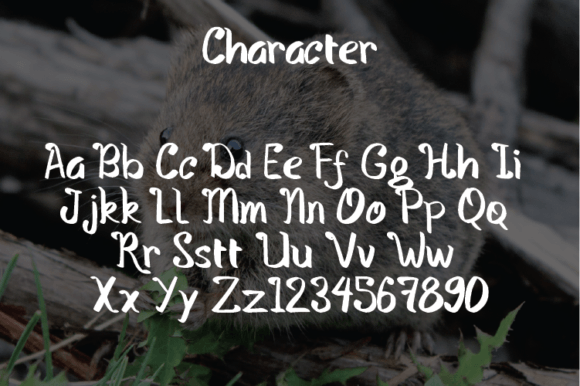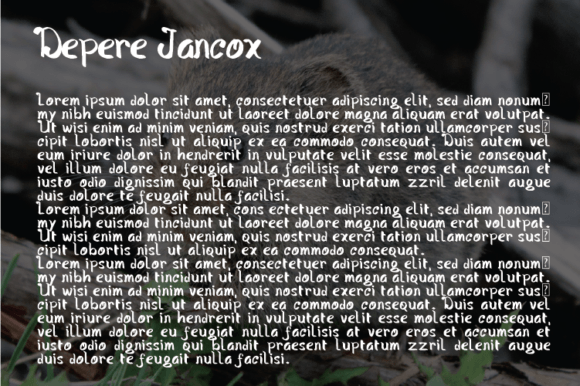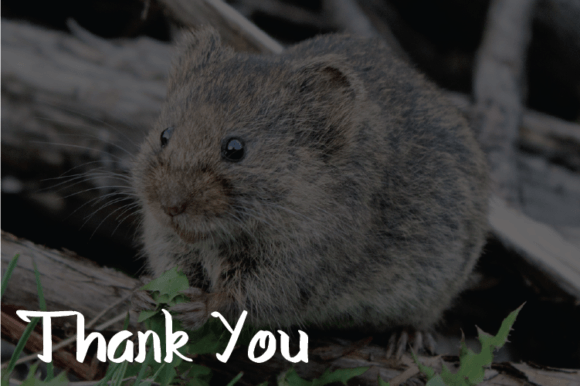
Introducing Depere Jancox Font: Elevate Your Designs with Elegance and Sophistication
In the world of typography, a well-crafted font can make all the difference in elevating a design from ordinary to extraordinary. For designers and crafters seeking a typeface that exudes elegance, luxury, and modernity, look no further than the Depere Jancox Font. Specifically, Depere Jancox Loro, a script typeface, has been making waves in the design community with its simple yet sophisticated style.
The Essence of Depere Jancox Loro
Depere Jancox Loro is characterized by its clean lines, flowing curves, and a modern aesthetic that lends itself perfectly to high-end designs. This script typeface is not just a font; it’s a statement piece that can transform any design project into a luxurious and elegant masterpiece. Whether you’re working on a logo, a book or movie title, a fashion brand, a magazine, or even a clothing line, Depere Jancox Loro offers the versatility and sophistication you need.
One of the standout features of Depere Jancox Loro is its incredible versatility. This typeface can seamlessly transition across various design projects, including:
- Elegant Logos: Create a lasting impression with a logo that speaks luxury and sophistication.
- Book and Movie Titles: Add a touch of glamour to your movie or book titles, making them instantly memorable.
- Fashion Brands: Perfect for fashion labels looking for a typeface that resonates with style and elegance.
- Magazines: Elevate your magazine’s title or headings with a font that exudes class.
- Clothing: Ideal for clothing brands that want to convey a sense of luxury and modernity.
- Quotes and Fonts: Use Depere Jancox Loro for quotes, phrases, or any textual content that requires a touch of sophistication.
Why Choose Depere Jancox Loro?
Choosing Depere Jancox Loro for your design project comes with numerous benefits:
- Unique and Memorable: Its unique style ensures your design stands out and remains memorable.
- Highly Legible: Despite its elegant and cursive nature, Depere Jancox Loro maintains high legibility, making it suitable for a wide range of applications.
- Customizable: As with many modern fonts, Depere Jancox Loro can be customized to fit your project’s specific needs, allowing for endless creative possibilities.
- Modern Aesthetic: Its modern look and feel ensure that your designs feel contemporary and on-trend.
Tips for Using Depere Jancox Loro
To get the most out of Depere Jancox Loro, consider the following tips:
- Pair with Contrasting Fonts: When using Depere Jancox Loro alongside other fonts, opt for contrasting styles to maintain visual interest and hierarchy.
- Experiment with Sizes: Don’t be afraid to experiment with different sizes to emphasize certain words or phrases.
- Consider Color: The elegance of Depere Jancox Loro can be further enhanced with the right color choices. Metallic or pastel shades can add an extra layer of sophistication.
Depere Jancox Loro is more than just a script typeface; it’s a tool for designers and crafters to create stunning, luxurious, and modern designs. Its simplicity, elegance, and versatility make it an excellent choice for a wide range of projects. Whether you’re aiming to create an elegant logo, a sophisticated book title, or a stylish fashion brand, Depere Jancox Loro is sure to elevate your design to new heights. Embrace the beauty and sophistication of Depere Jancox Loro and transform your designs with a touch of luxury and modernity.